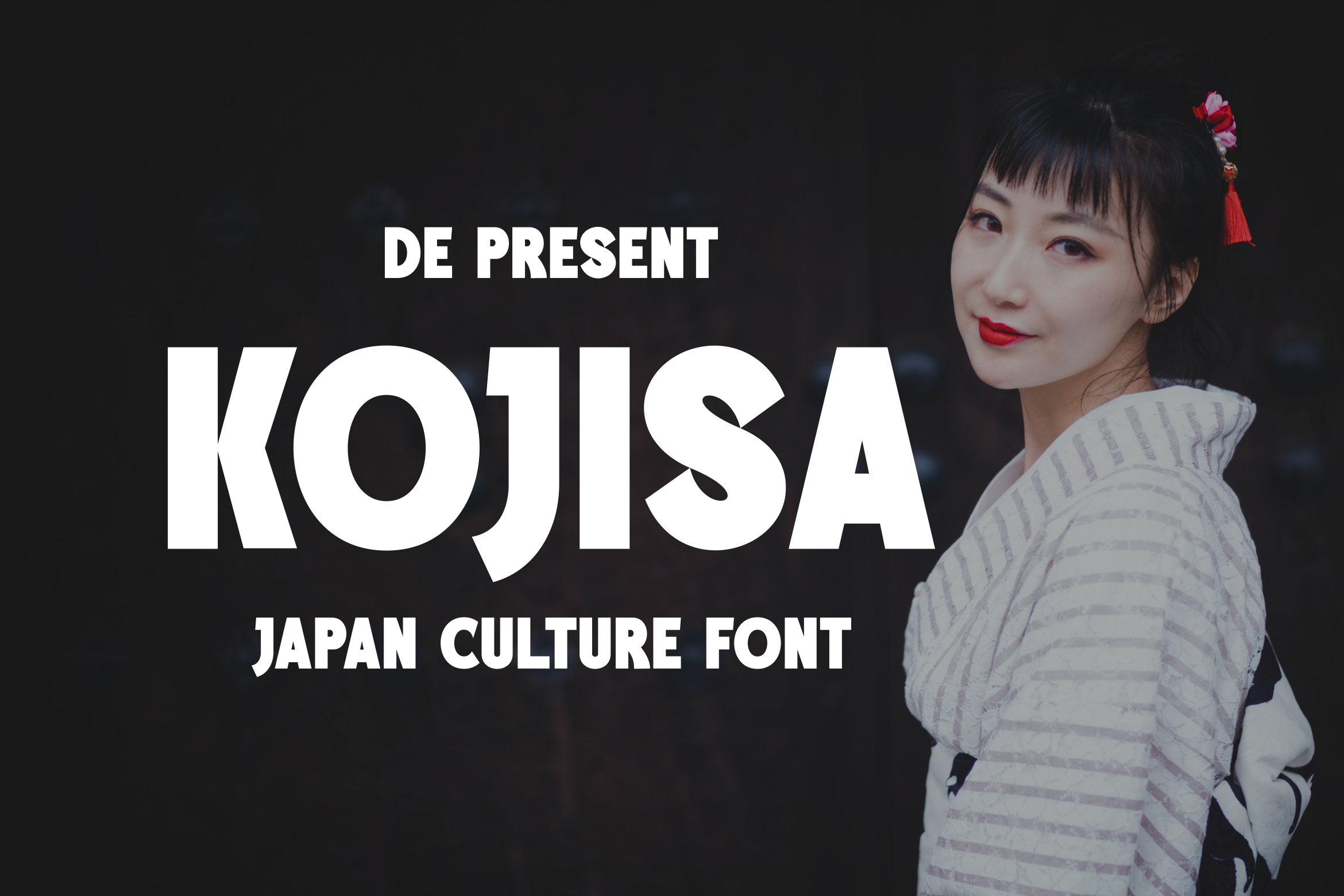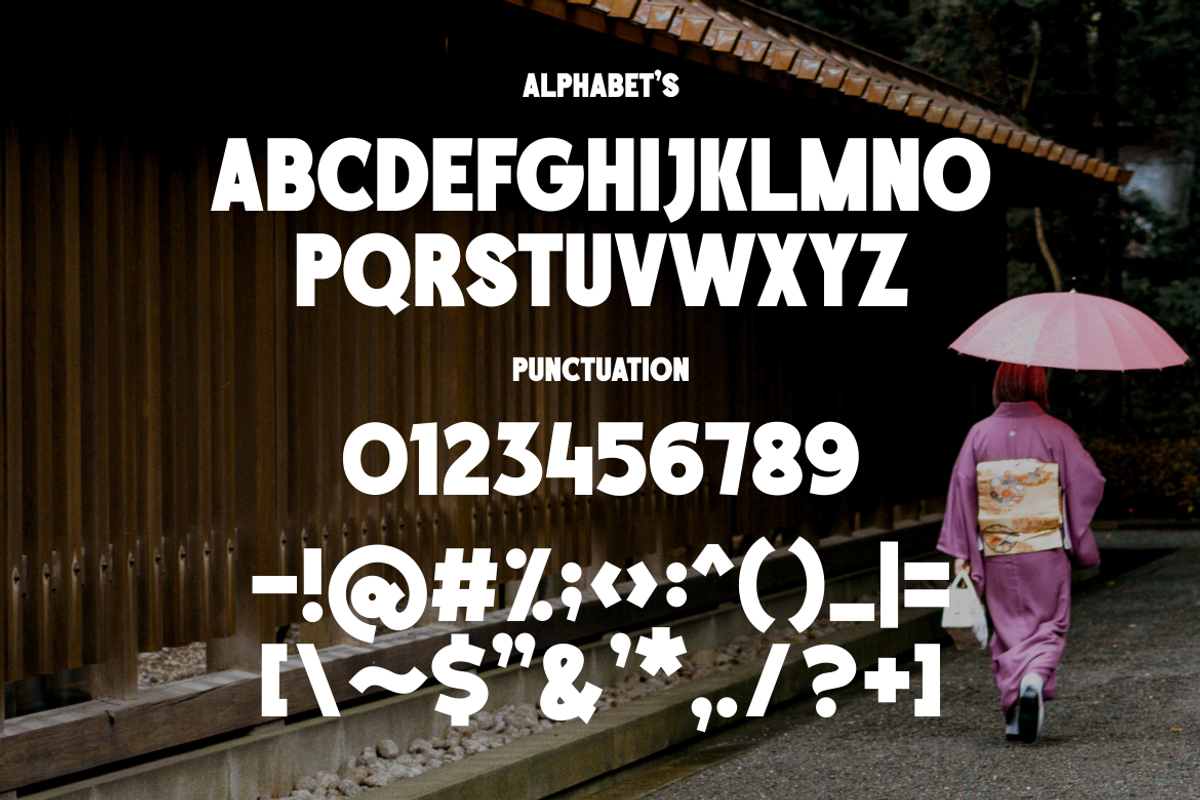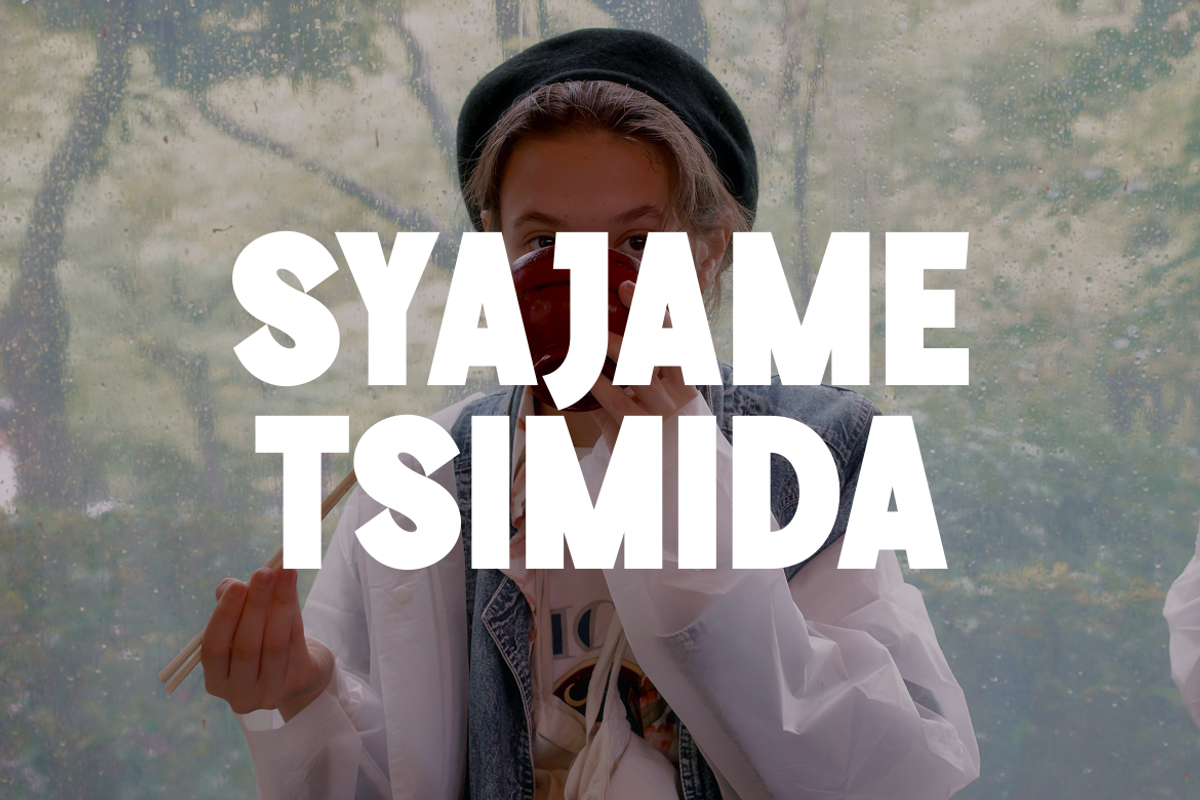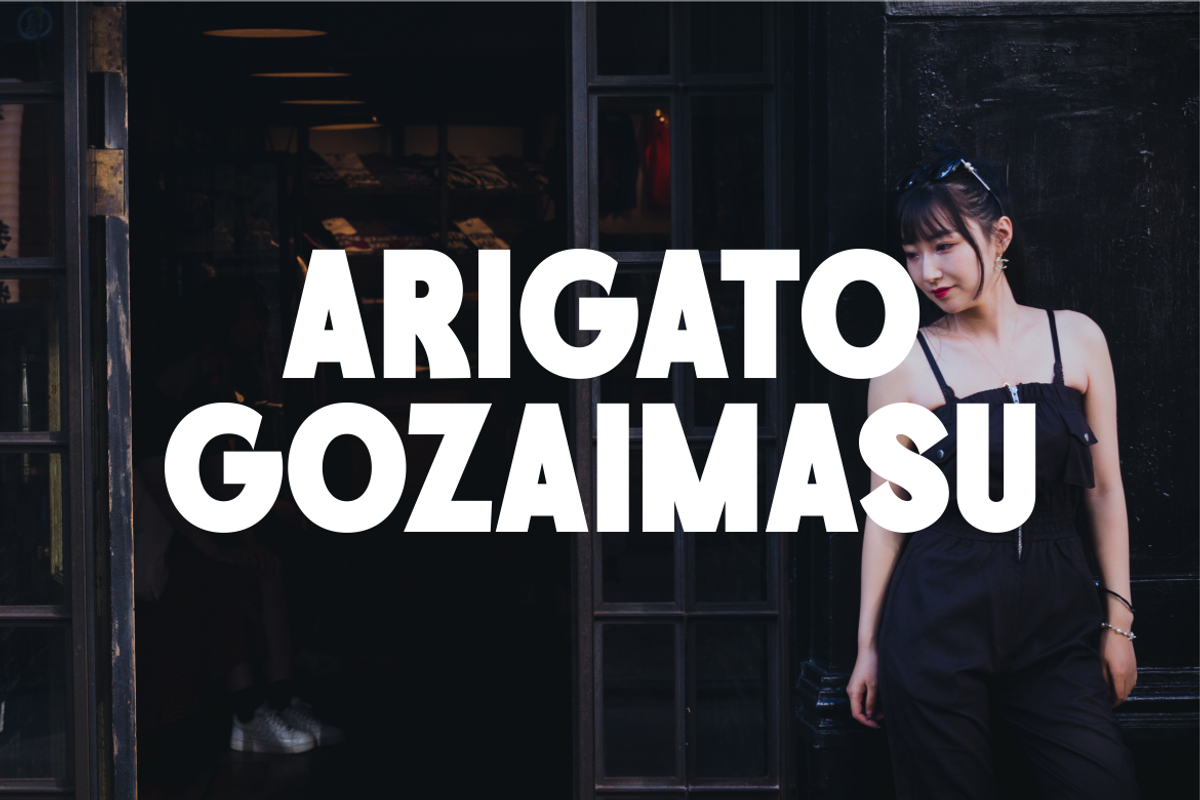
Kojisa Bold Japan Culture Font
is a bold font with some of the glyphs made to resemble Japanese culture. the most prominent of them are J, K, S. Actually, this font can be used more widely, depending on what you want to use.